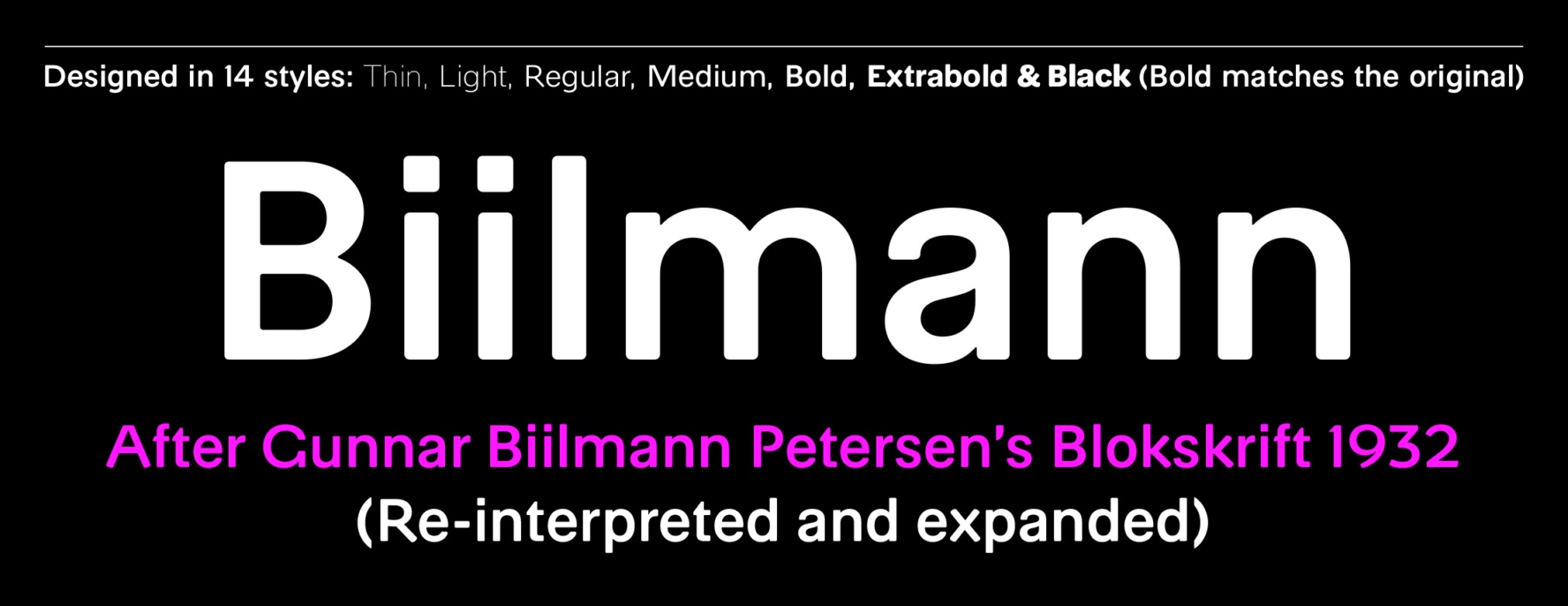
A2 Biilmann Font
A2 Biilmann Font is perfectly suited for modern corporate branding, tech startup identities, contemporary web design, professional business communications, sleek advertising campaigns, innovative product packaging, digital interface design, minimalist presentations, and cutting-edge visual communications.
What makes A2 Biilmann Font so exciting is its exceptional contemporary sophistication and innovative design approach that perfectly embodies the spirit of modern business and technological advancement through every precisely crafted letterform. This outstanding typeface combines geometric precision with humanist warmth, creating typography that feels both professional and approachable while maintaining distinctive character that sets brands apart in competitive markets. The font's clean character shapes and refined proportions demonstrate exceptional attention to detail while providing the versatility needed for comprehensive brand systems. A2 Biilmann Font stands out through its ability to convey innovation, reliability, and professional excellence, making it perfect for projects that need to establish modern credibility while communicating effectively with forward-thinking audiences who value cutting-edge design and technological sophistication.
The A2 Biilmann Font family includes Light, Regular, Medium, Bold, and Black weights, each maintaining the font's distinctive contemporary character while providing comprehensive design flexibility for various professional applications. The family also features italic variations and extended character sets that enhance the font's versatility and provide complete solutions for sophisticated branding systems requiring consistent performance across multiple platforms.
The technical excellence of A2 Biilmann Font includes comprehensive character sets supporting multiple languages, advanced OpenType features, and precision-engineered spacing optimized for both screen and print applications. The font maintains exceptional legibility across all sizes while providing the flexibility needed for complex branding systems that require seamless integration across diverse media platforms and contemporary design contexts.
Whether you're developing tech company identities, designing professional marketing materials, creating innovative product branding, or building comprehensive visual systems that demand contemporary sophistication and professional reliability, A2 Biilmann Font delivers the perfect combination of modern style and functional excellence that ensures your projects remain competitive and visually compelling in today's rapidly evolving design landscape.